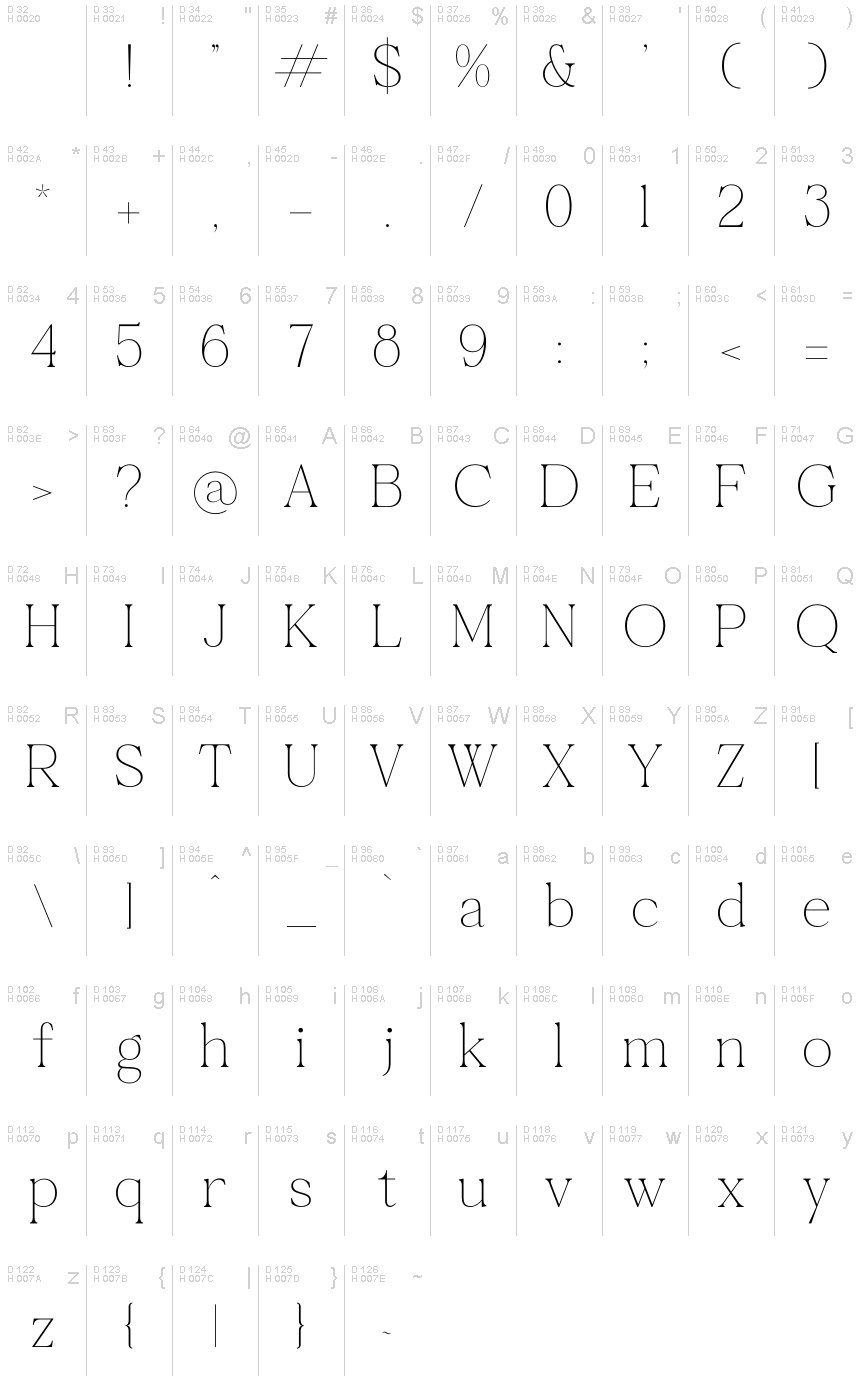
sorealism
Sorealism, a captivating serif font designed by Storytype Studio, exudes a sense of elegance and sophistication. Its refined letterforms and graceful curves evoke a timeless, yet contemporary aesthetic, making it a versatile choice for a wide range of design applications.
The font's distinctive character is evident in its unique serifs, which add a touch of refinement to the overall composition. The balanced stroke weights and harmonious letter spacing contribute to the font's exceptional readability, ensuring a seamless and enjoyable reading experience across various mediums.
Sorealism's versatility makes it a suitable choice for editorial designs, book covers, branding initiatives, and high-end marketing materials. Its refined and sophisticated appearance lends itself well to projects that require a touch of elegance and timelessness, captivating audiences with its refined and elegant personality.